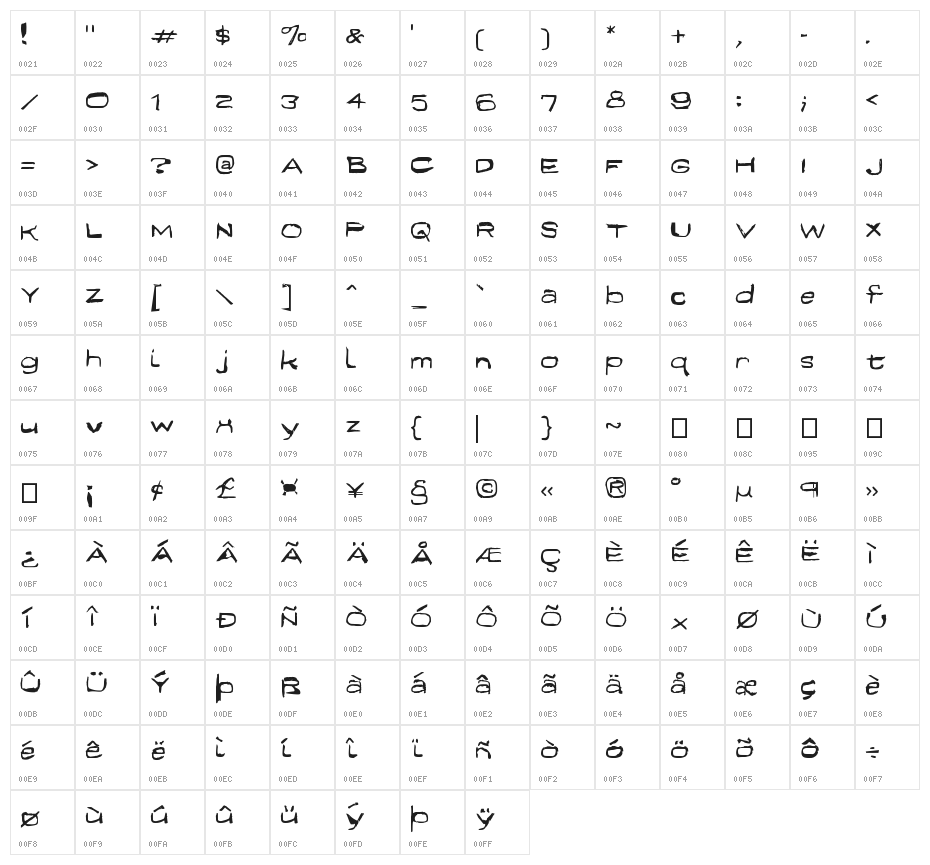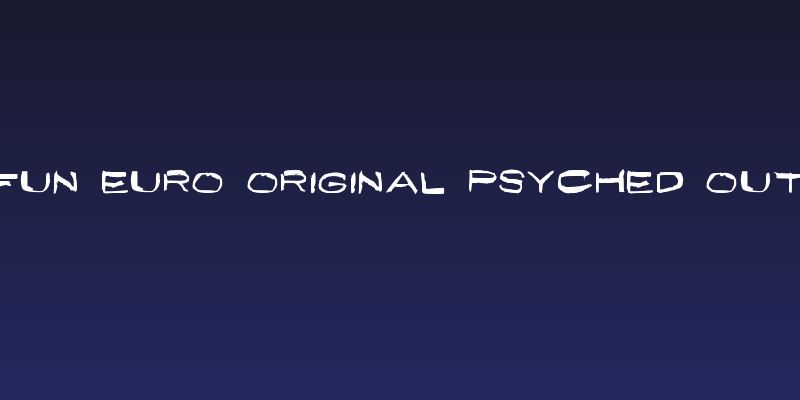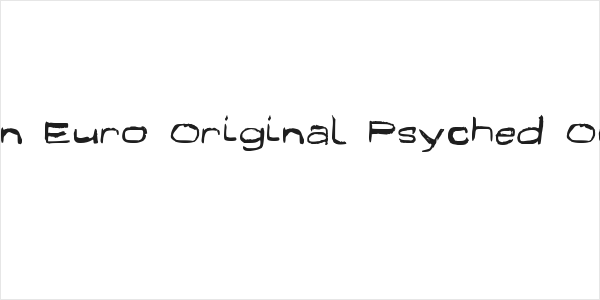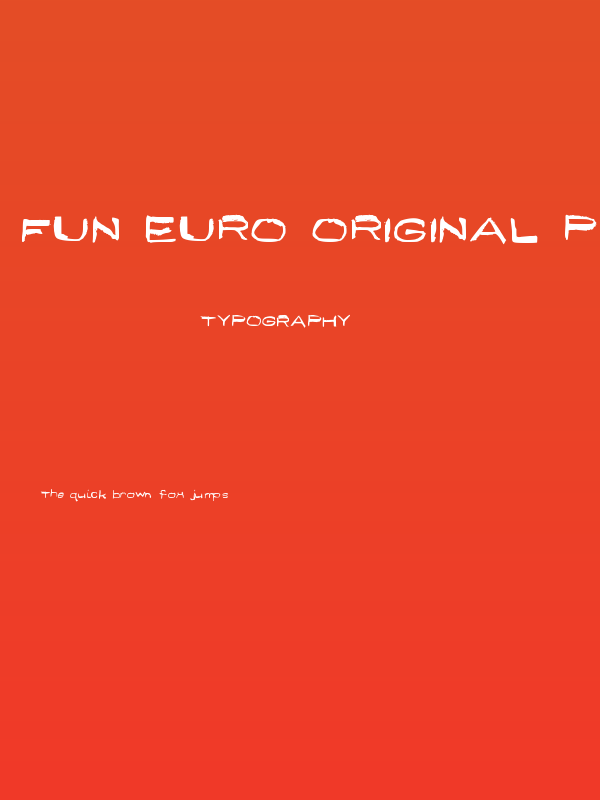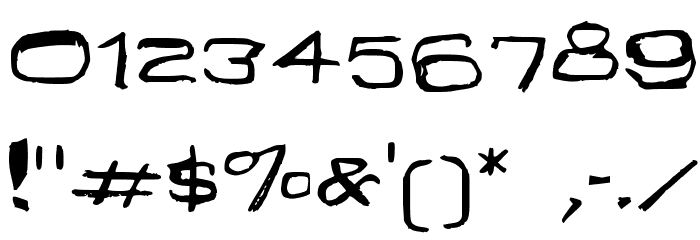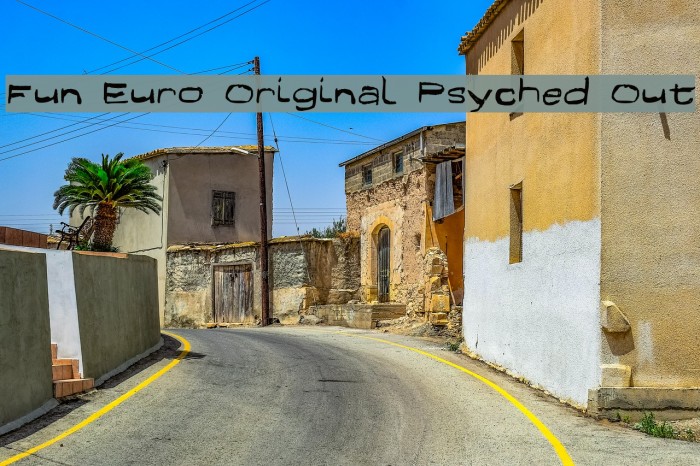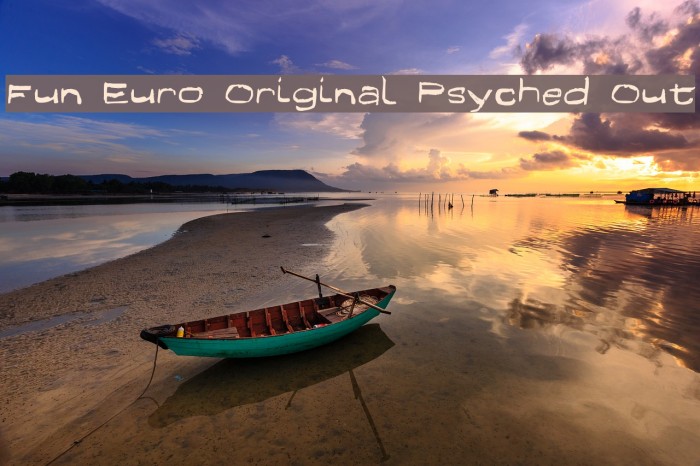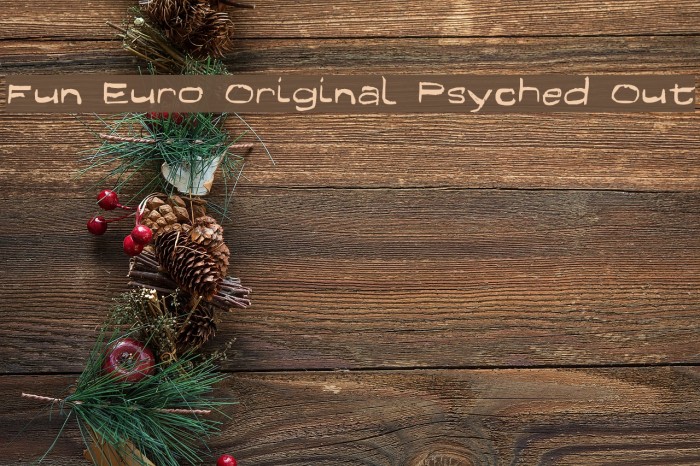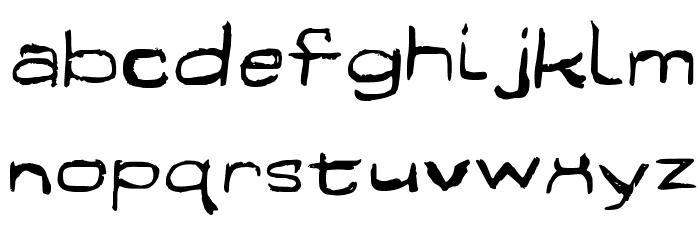
Fun Euro Original Psyched Out Font
Fun Euro Original Psyched Out Description
This font features a unique, hand-drawn style with an organic and slightly chaotic appearance. The letters are irregular, with varying stroke thickness that gives them a dynamic and energetic feel. The uppercase and lowercase characters maintain a consistent style, with a playful and artistic flair. The numbers and special characters follow the same design principles, adding to the font's cohesive look. This font's distinctive style makes it stand out, offering a creative and unconventional option for various design projects.
| Use Case | Logos, Posters, Creative Branding |
| Proposed Projects | Ideal for artistic projects, album covers, posters, and creative branding. |